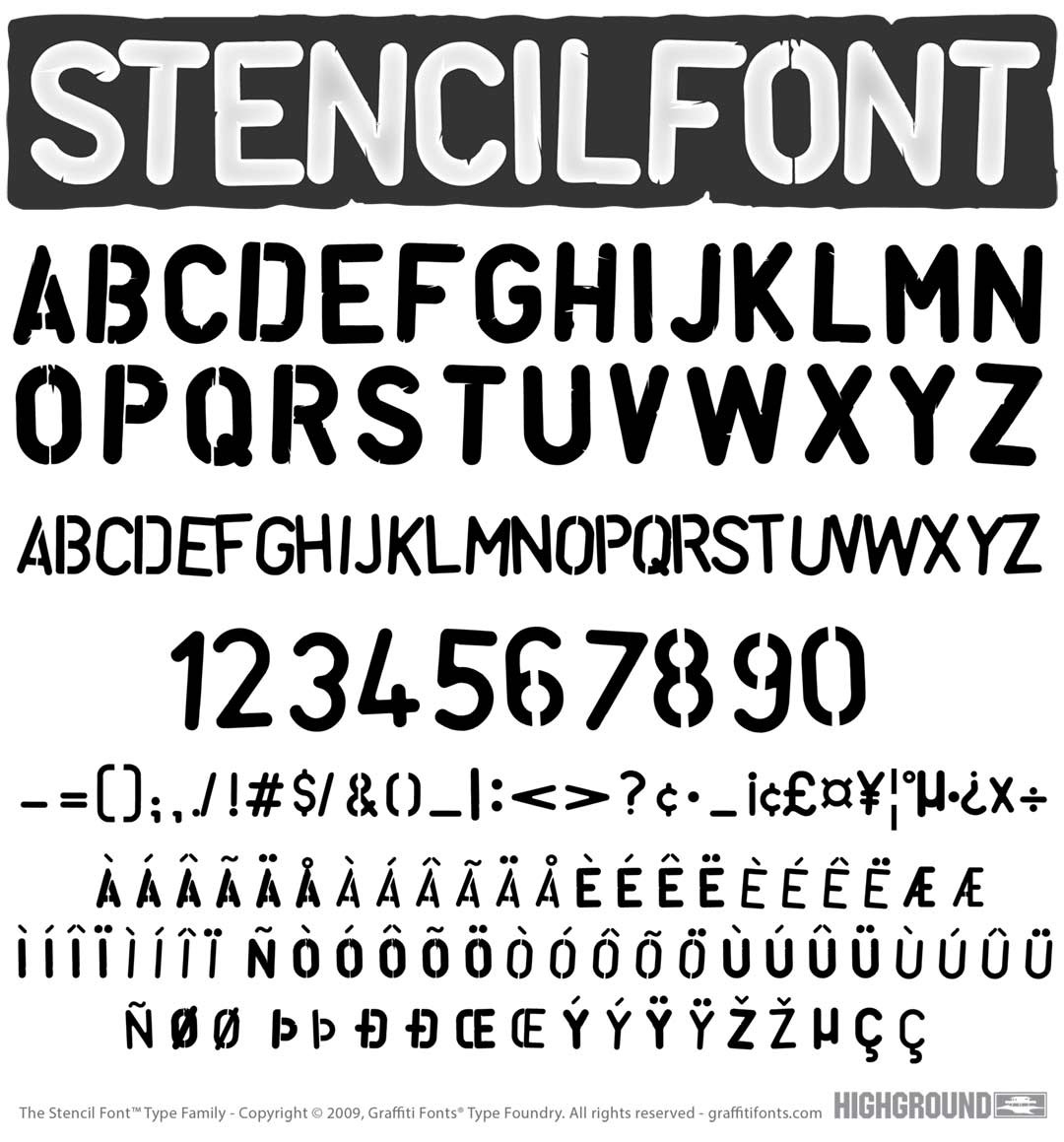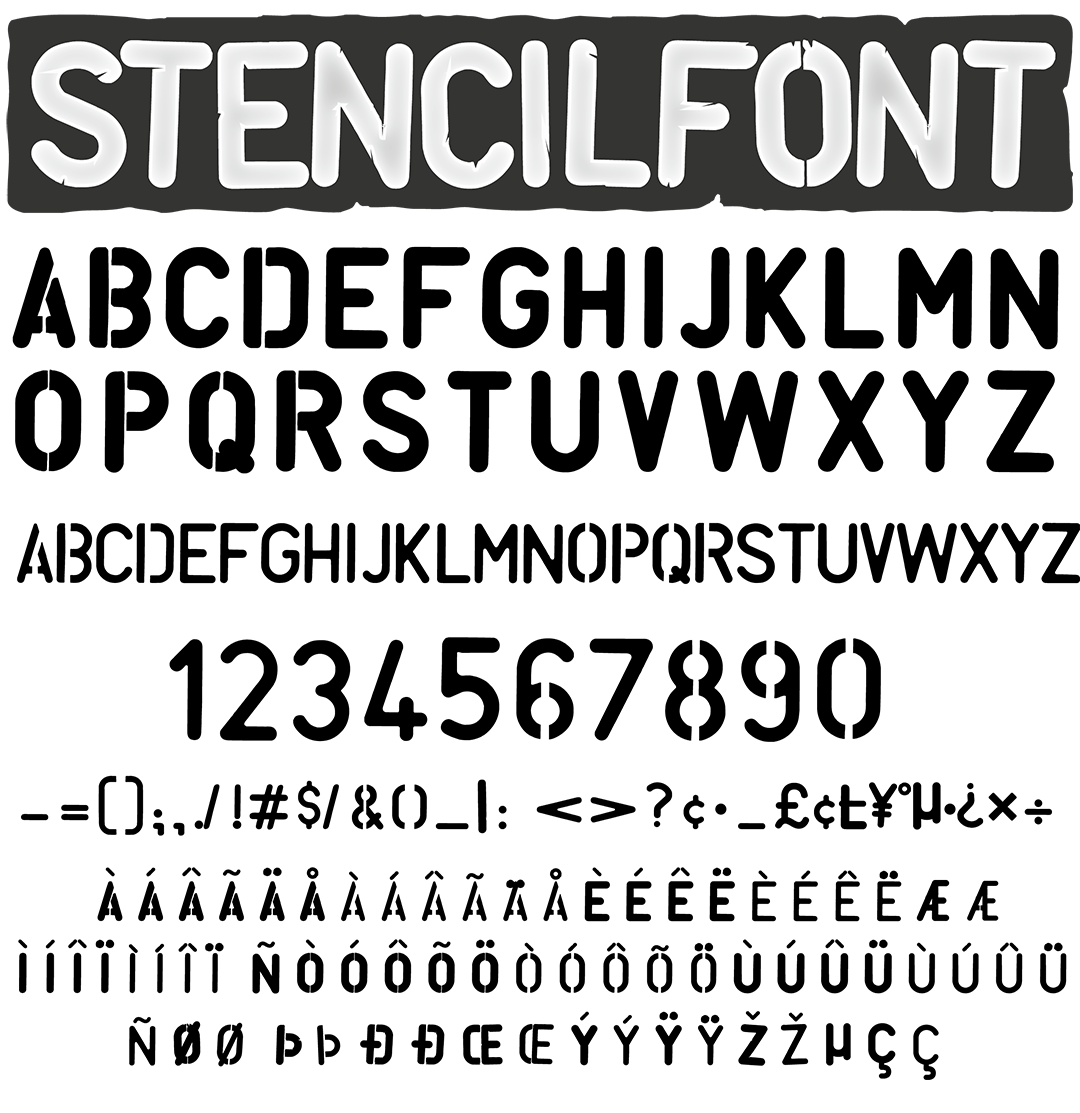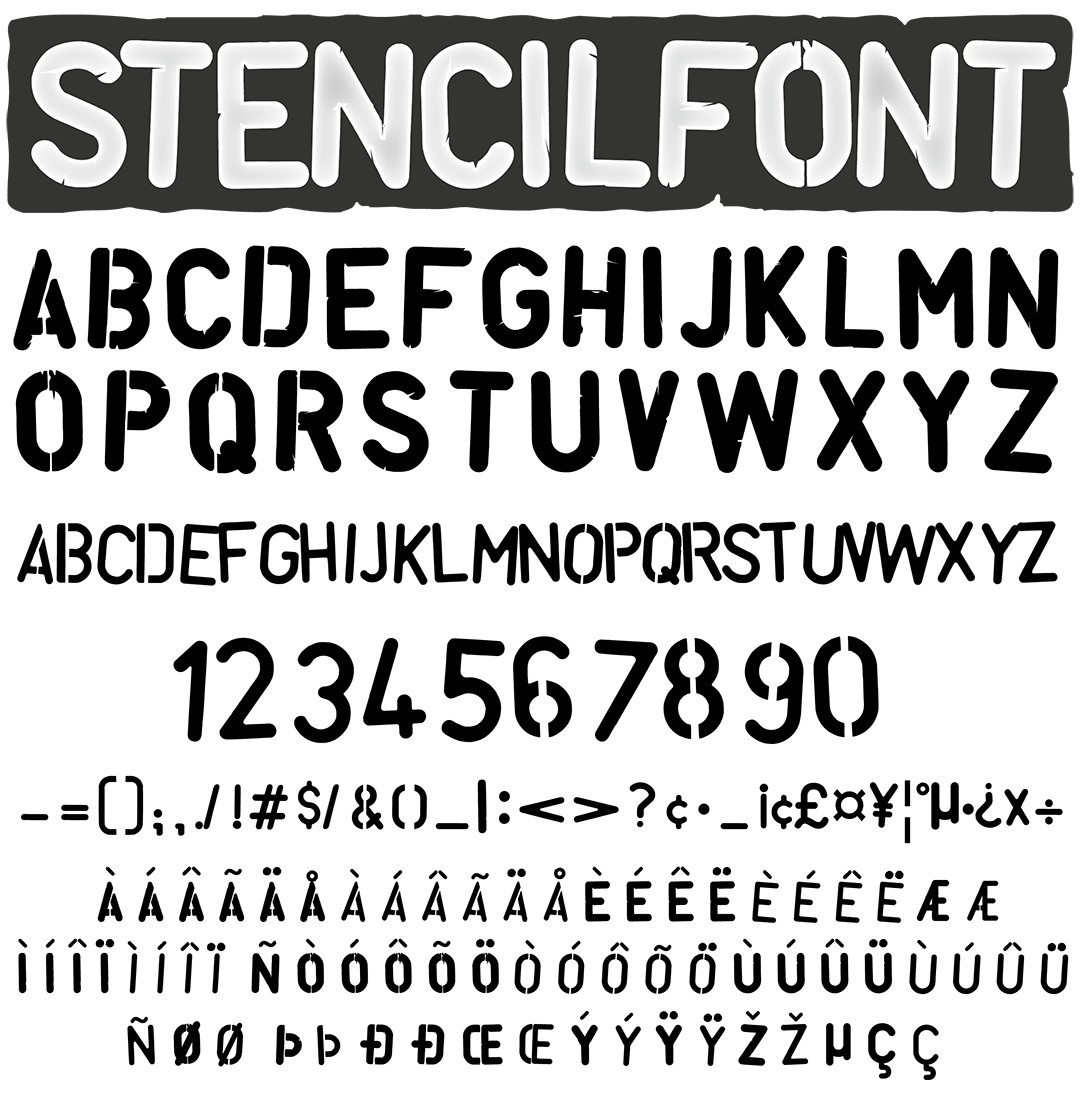
Stencil Font Font
Stencil Font Graffiti Alphabet
Stencil Font Graffiti Font Family
This stencil style typeface includes 2 fonts each with 2 alphabets, numbers, punctuation & symbols. Each font has a bolder style on the caps keys and a lighter style on the lowercase keys. The "Damaged" style features shifted letters & tiny cracks & chips. for a distressed, imperfect appearance.